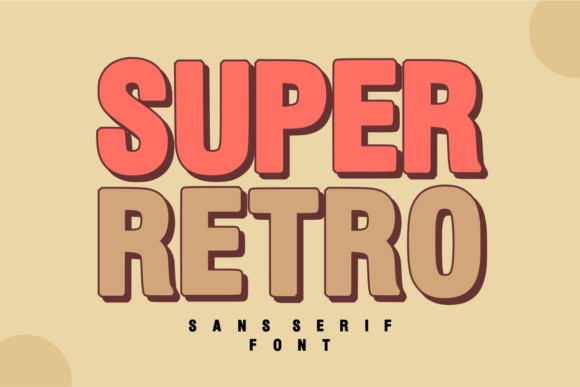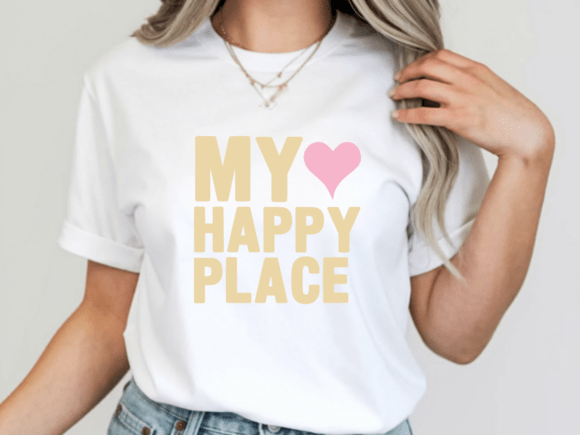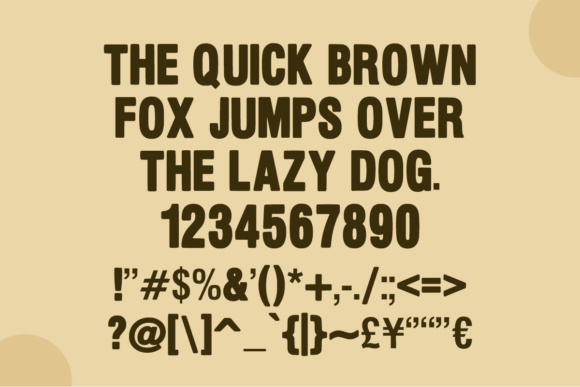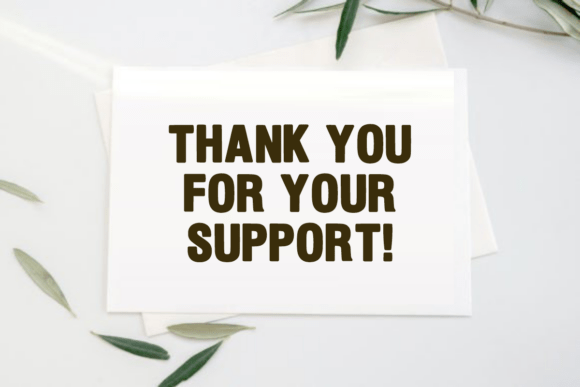
Get Ready to Groove with the Bold Sans Font
Remember the thrill of digging through your grandfather’s attic, uncovering a dusty old vinyl record and holding it up to the light? The feeling of being transported back to a bygone era, surrounded by the sights and sounds of a different time? That’s what it’s like to work with the Bold Sans Font – a retro display font that’s equal parts vintage charm and modern boldness.
Whether you’re a seasoned designer or just starting out, the Bold Sans Font is a must-have addition to your creative toolkit. With its thick, chunky structure and sleek 3D offset shadow, it brings an instant nostalgic vibe to any design. From streetwear to retro posters, quirky branding to eye-catching headlines, the Bold Sans Font delivers a clean yet powerful look that’s sure to make your designs stand out.
Bold Sans Font Key Features
- Font Family: Bold Sans, a modern sans-serif font designed for readability and versatility.
- Unique Characteristics: Bold Sans features a bold, geometric design with a subtle rounded edge, making it perfect for headings, titles, and body text.
Bold Sans Font Review
Overall, I was pretty impressed with the Bold Sans Font. It’s a solid choice for anyone looking for a sans-serif font with a bit of attitude. Here are some things that really stand out:
- ✨ The font is incredibly versatile, working well for both digital and print applications.
- ✨ The bold weight is really strong, making it perfect for headlines and titles.
- ✨ The font is highly legible, even at small sizes.
That being said, there are a few limitations to consider:
- ⚠️ The font doesn’t have a lot of stylistic variations, which can make it feel a bit one-dimensional.
- ⚠️ The font doesn’t work well in certain scripts, such as Arabic or Chinese.
Overall, I’d say the Bold Sans Font is a great choice for anyone looking for a simple, yet effective sans-serif font. While it may not be perfect, it’s definitely a solid addition to any design arsenal.
Tips for Getting the Most Out of Bold Sans Font
Use Bold Sans Font for:
- Call-to-actions and buttons
- Emphasizing key information
Remember to balance your font usage to maintain readability and visual appeal.
Bold Sans Font is ideal for:
- Modern and minimalist designs
- Corporate and professional branding
- Digital products and interfaces
Alternatives to Bold Sans Font
Montserrat is a modern sans-serif font designed for digital use. It’s clean, geometric, and highly legible, making it perfect for body text and headings. Montserrat is more geometric and less rounded compared to Bold Sans Font, giving it a more contemporary feel.
Avenir is a classic sans-serif font that exudes sophistication and elegance. It’s ideal for use in luxury brands, high-end publications, and any design where a touch of sophistication is required. Avenir is more refined and less bold compared to Bold Sans Font, making it suitable for applications where subtlety is key.
Inter is a clean and versatile sans-serif font that’s perfect for digital use. It’s highly legible and works well in a variety of contexts, from body text to headings. Inter is more modern and less ornate compared to Bold Sans Font, making it a great choice for designs where simplicity is a priority.
Lato is a sans-serif font with a friendly, approachable feel. It’s perfect for use in designs where a human touch is required, such as in branding, advertising, and editorial work. Lato is more rounded and less geometric compared to Bold Sans Font, giving it a softer, more inviting appearance.